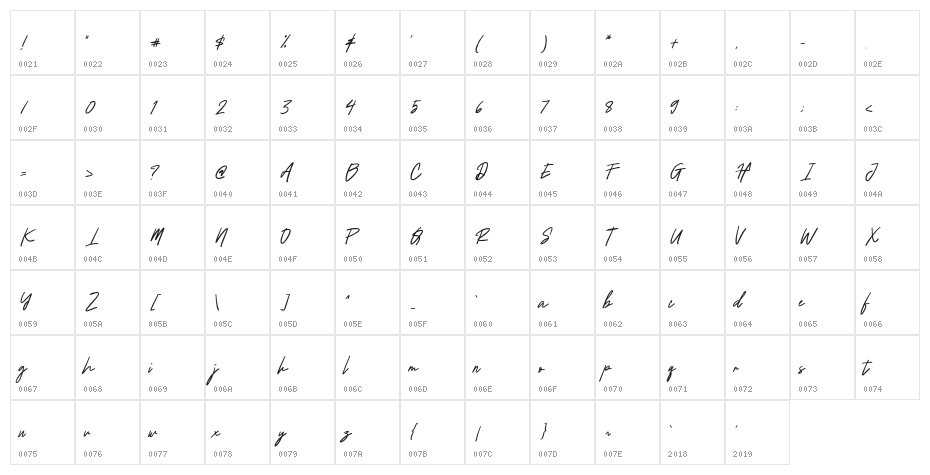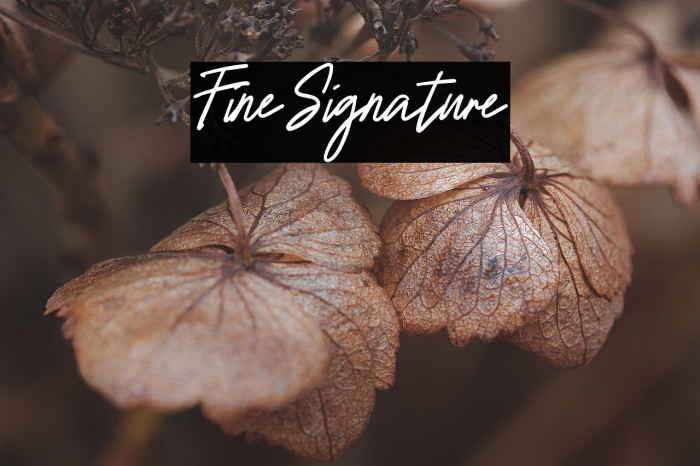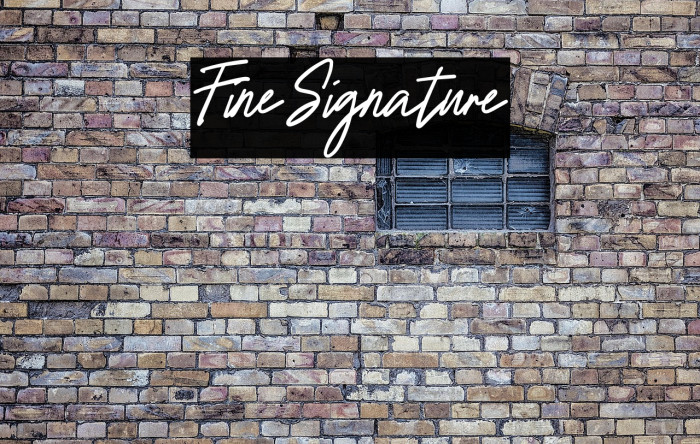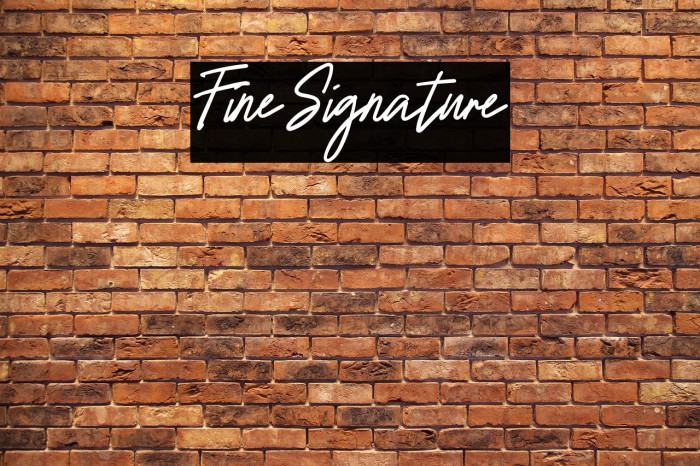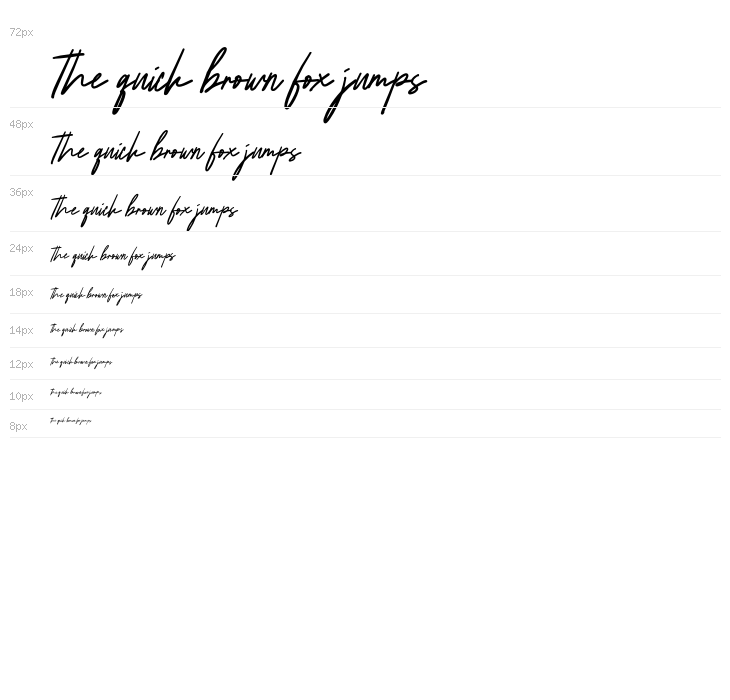
FineSignature Font
FineSignature Description
A cursive, handwritten font with a fluid and elegant style, featuring smooth curves and a natural flow.
| Overall Style | Elegant, Natural |
| Use Case | Logos, Signatures, Personal notes |
| Proposed Projects | Invitations, personal branding, greeting cards. |